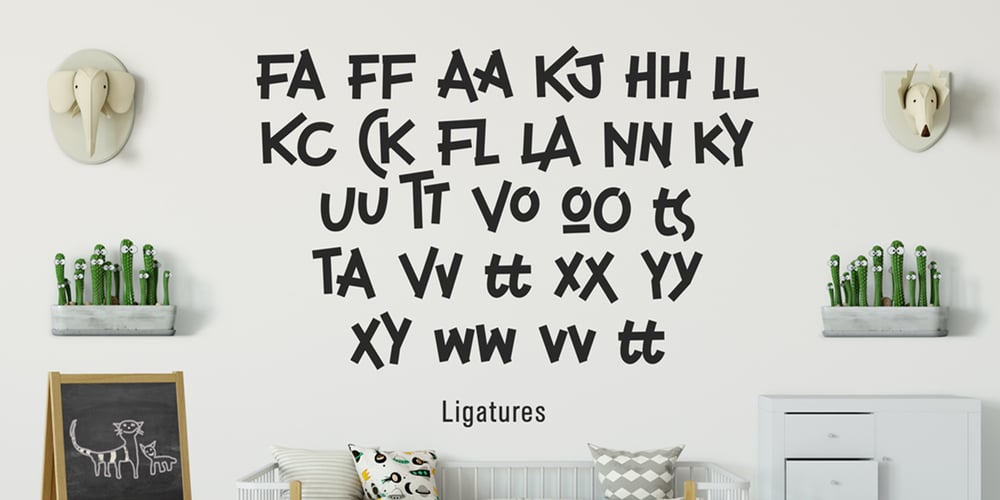
Childwood Font Family was designed by Ahmad Ramzi Fahruddin and published by Arterfak Project. Childwood contains 2 styles and family package options. Childwood is a typeface inspired with a sense of wood and kids. Recommended for your headline such as the children book cover, coloring book, interior murals, poster, t-shirt, mug & other merchandise. Available in Normal & Rough style. The playful font that you can combine the uppercase & lowercase to get the children taste!